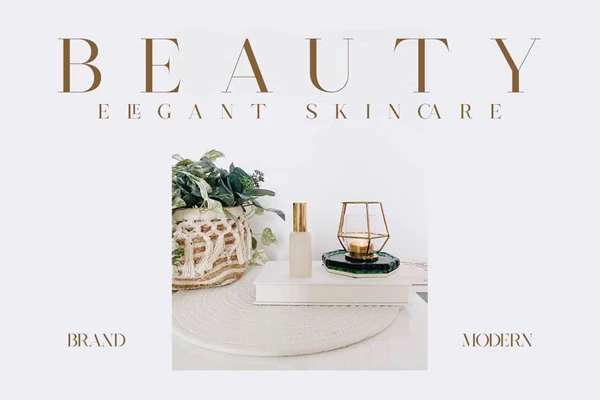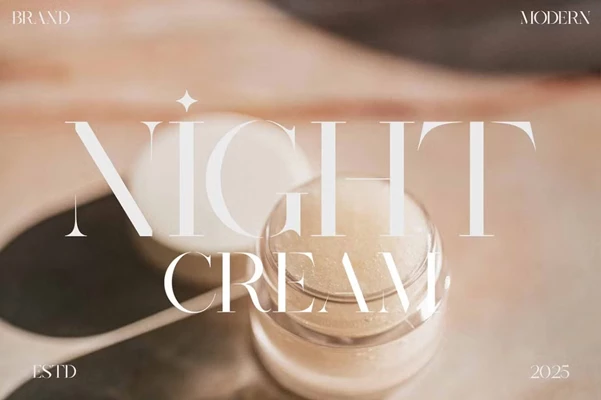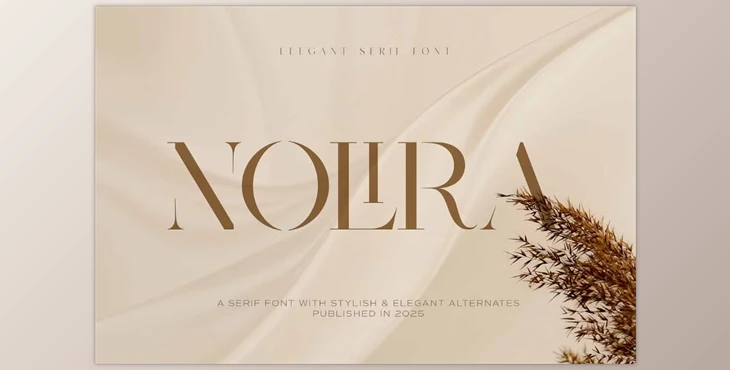
Nolira Elegant Serif Font:
As modern as it is timeless, Nolira is a sophisticated serif typeface with sleek craft and refined curves, giving it exquisiteness and luxury. Nolira is ideal for high editorial pieces and fashion logos as well as for wedding invitations and branded materials, elevating the overall appearance.
The typeface contains different alternate styles of the type, which gives the designers flexibility to make unique and artistic layouts. Its classical elegance blended with contemporary modern aesthetics, a sharp contrast of high stroke and serif details makes it a perfect blend of old and new. It’s a timeless and stylish choice.
- Supports creative design through ligatures and stylistic alternates